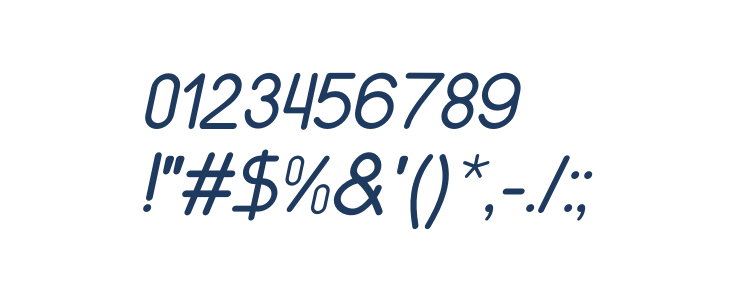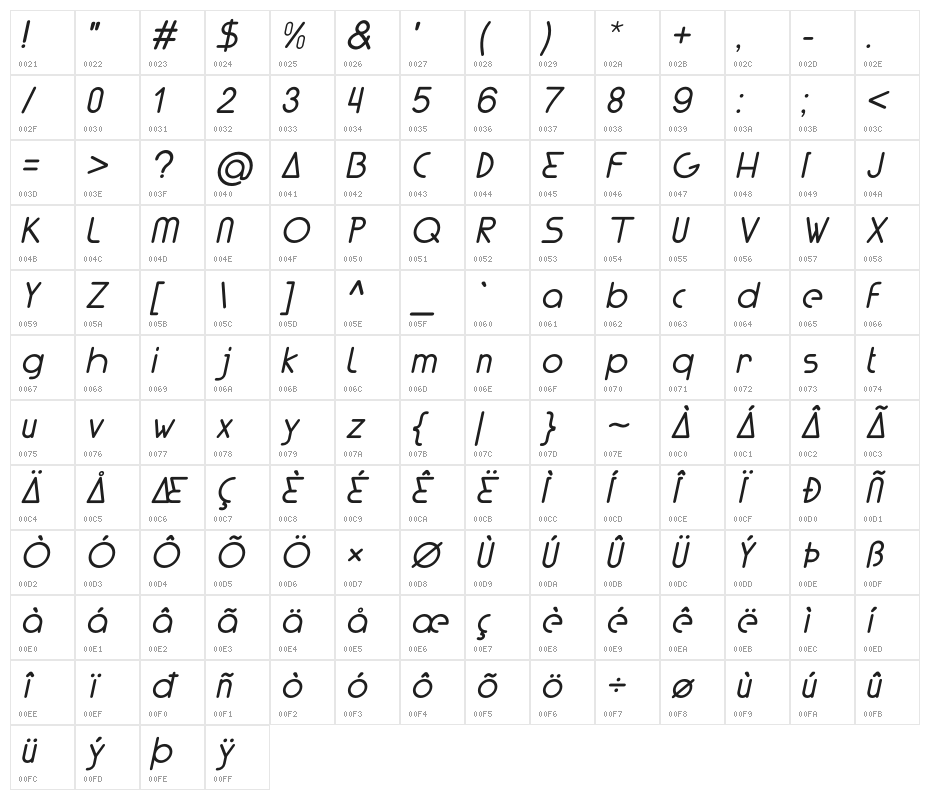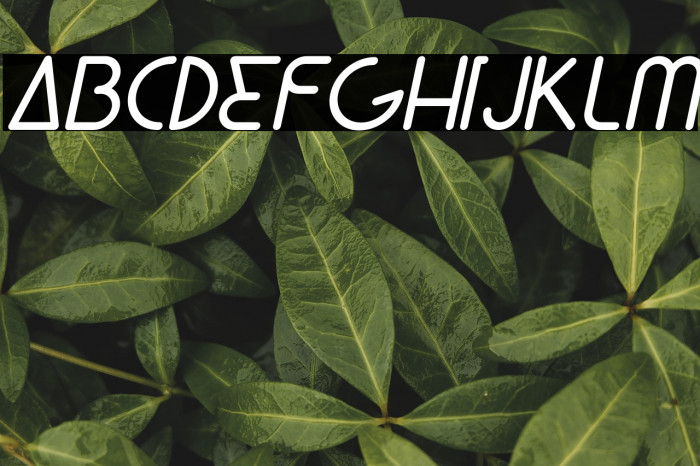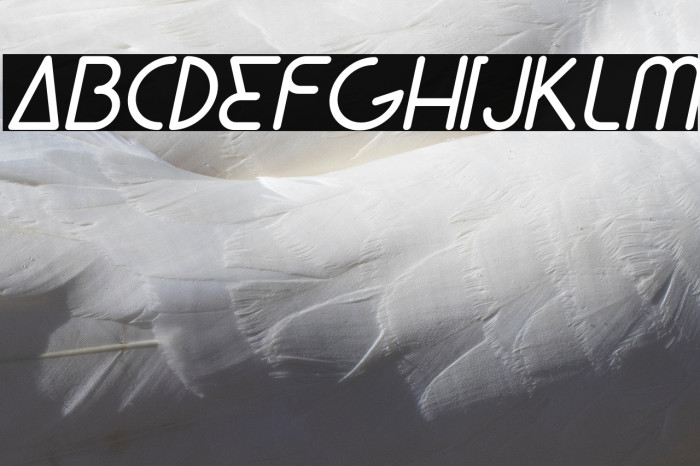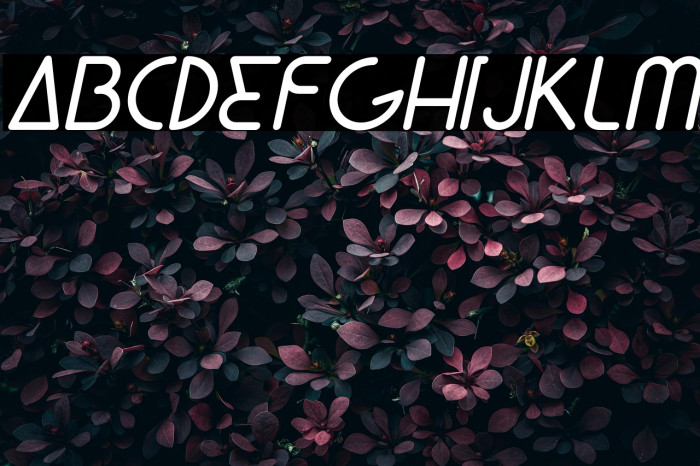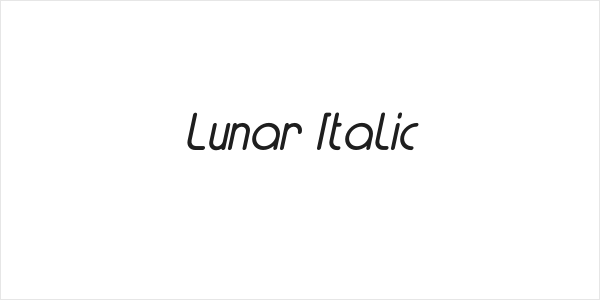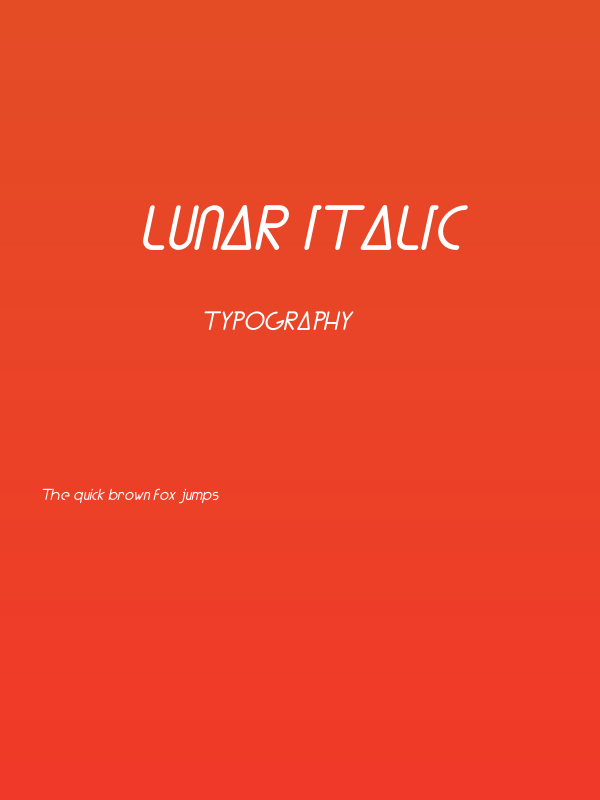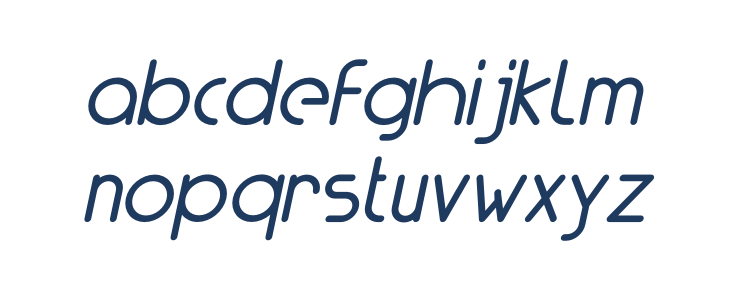
Lunar Italic Font
Lunar Italic Description
This font features a sleek, modern design with a distinct italic slant, giving it a dynamic and forward-moving appearance. The characters are rounded with smooth curves, creating a sense of fluidity and motion. The uppercase letters maintain a consistent height, while the lowercase letters are slightly more compact, enhancing readability. The numerals are well-proportioned, aligning seamlessly with the overall style. Special characters are designed with the same attention to detail, ensuring they integrate well with both text and numerical elements. This font's clean lines and contemporary aesthetic make it versatile for various design applications.
| Use Case | Headlines, Logos, Digital interfaces |
| Proposed Projects | Ideal for futuristic branding, tech-related projects, modern advertising, and digital interfaces. |